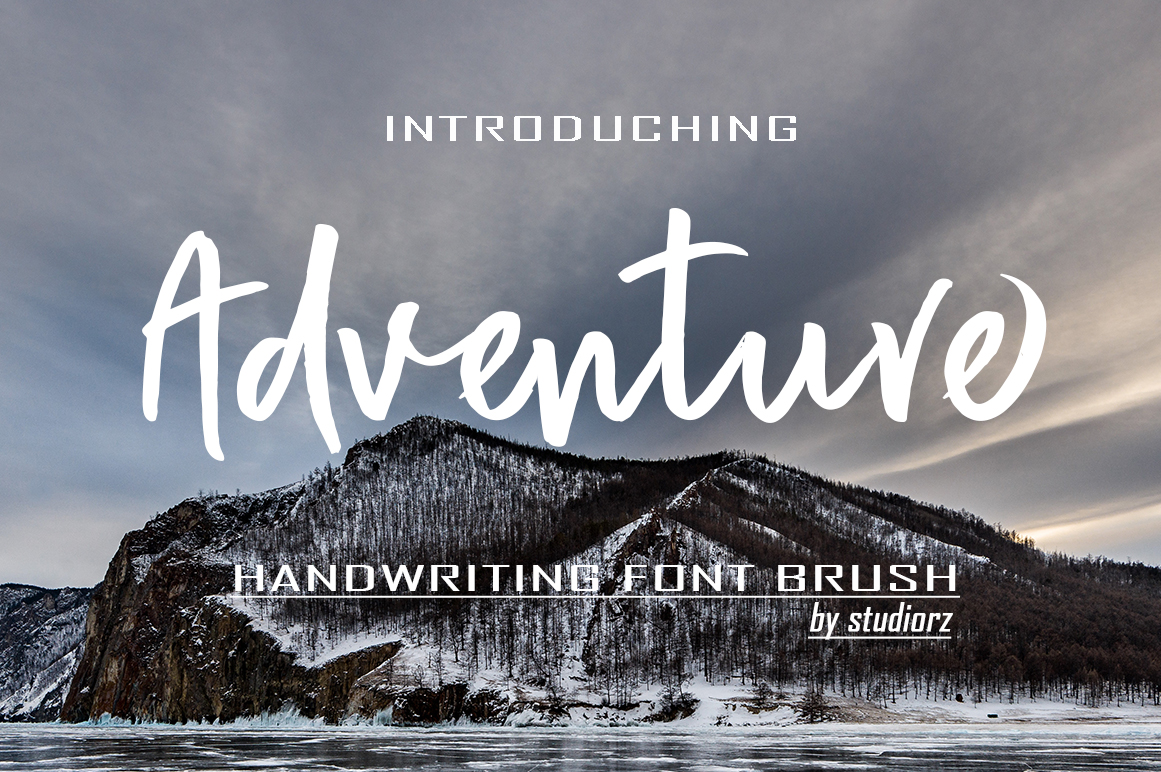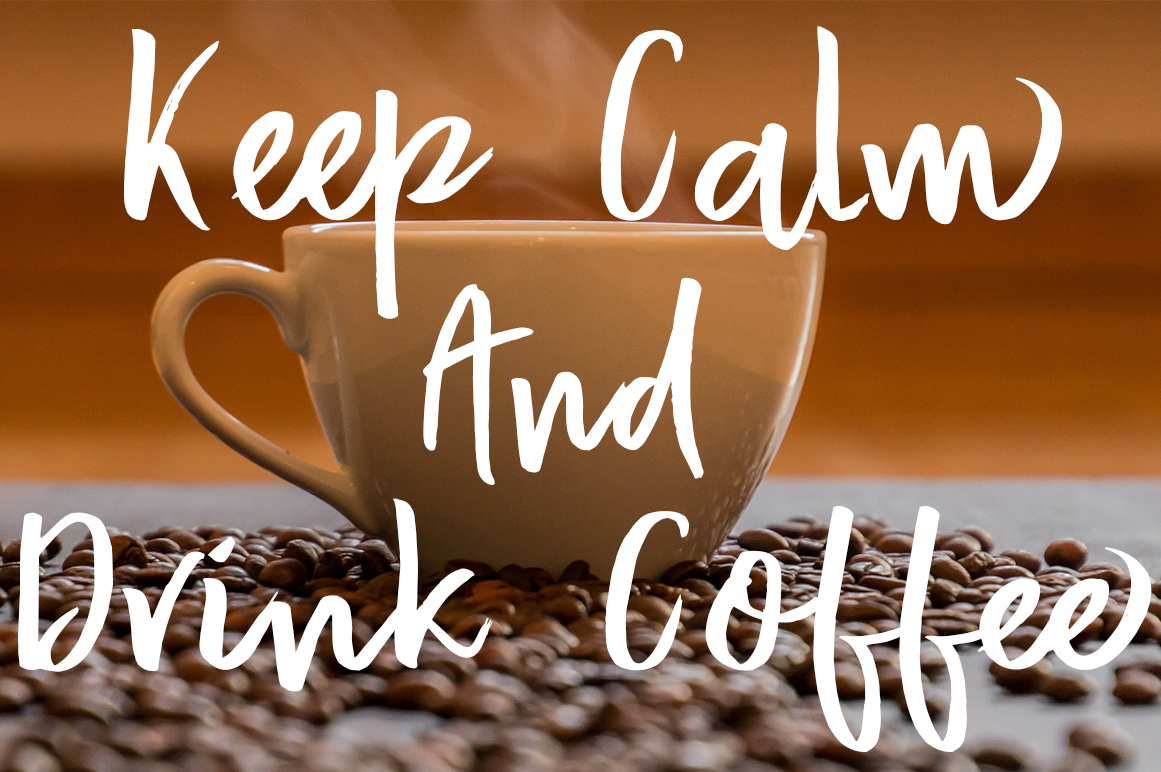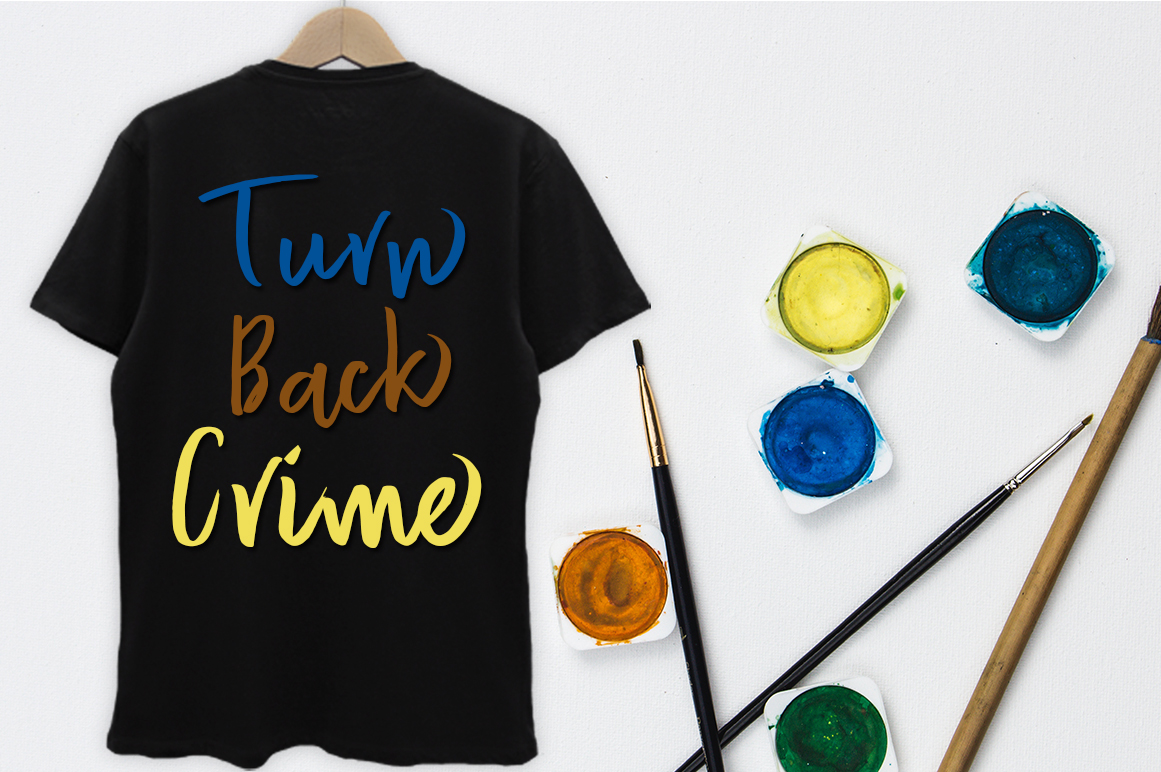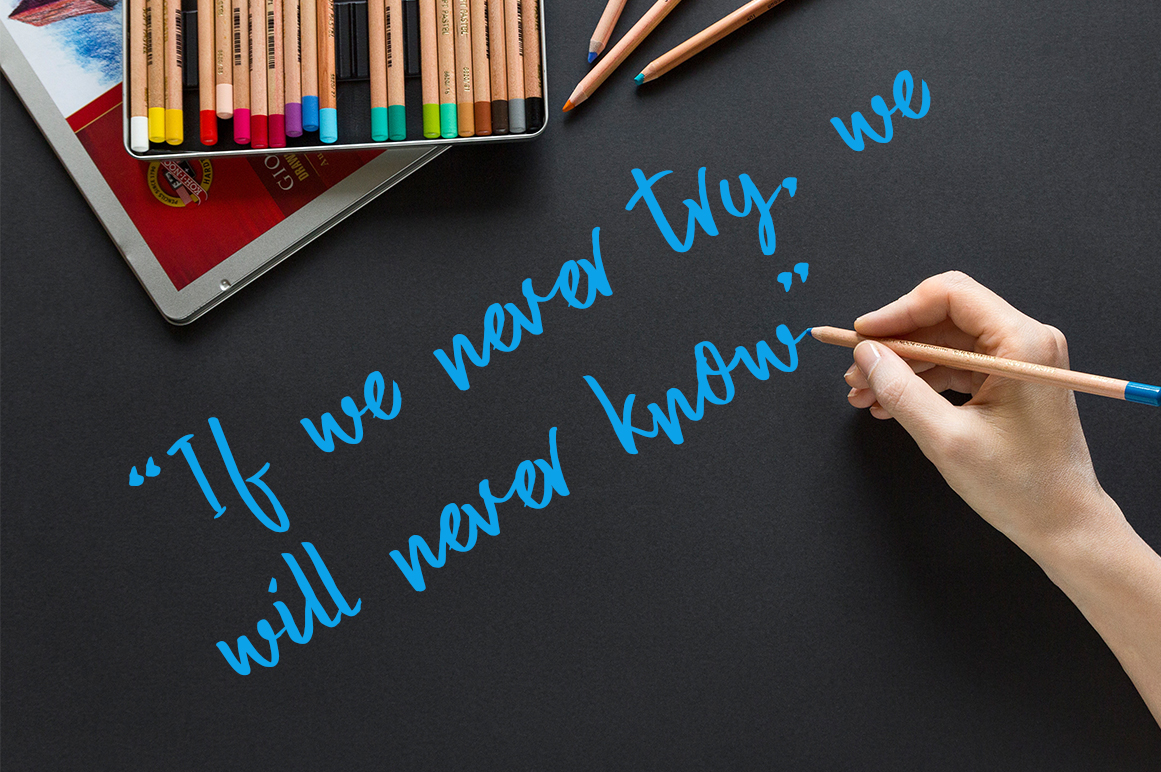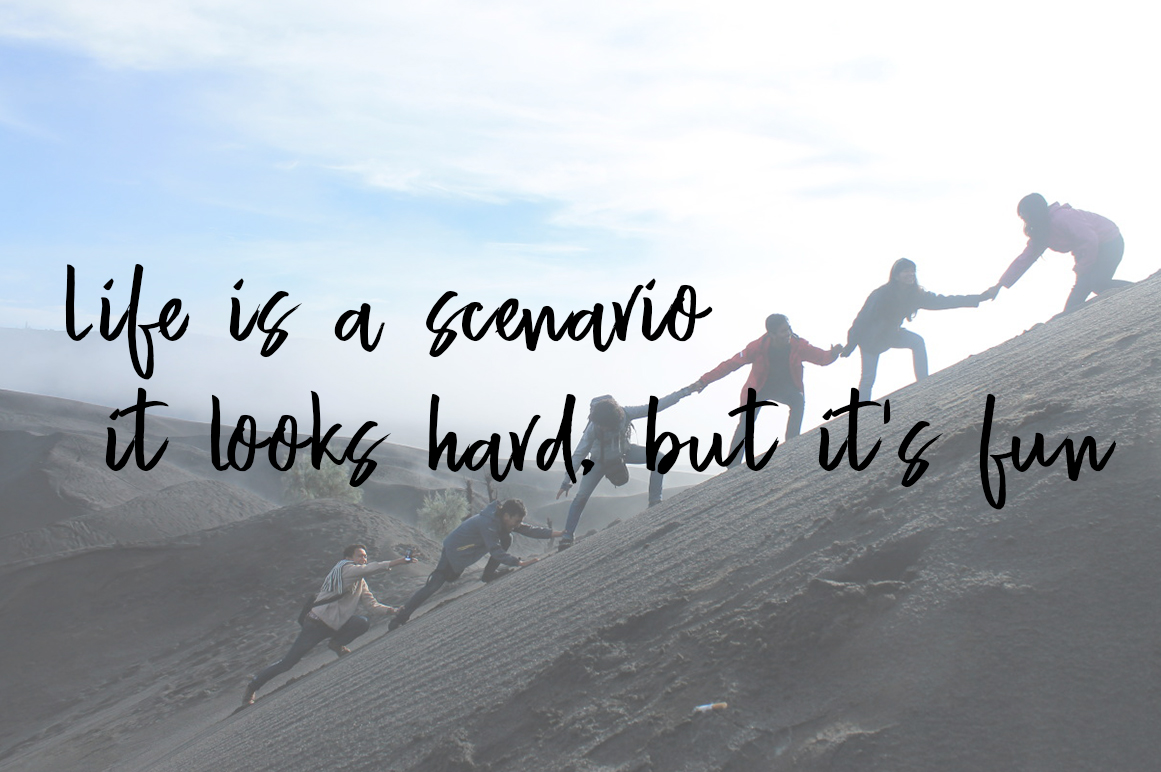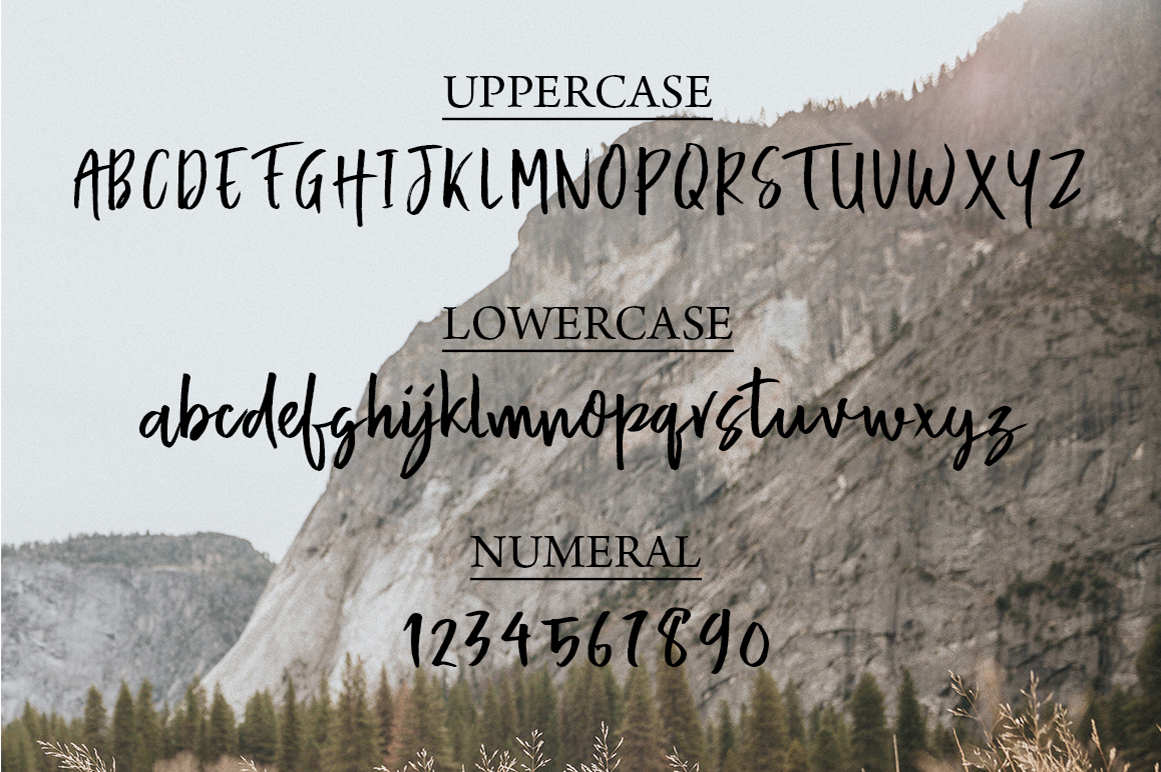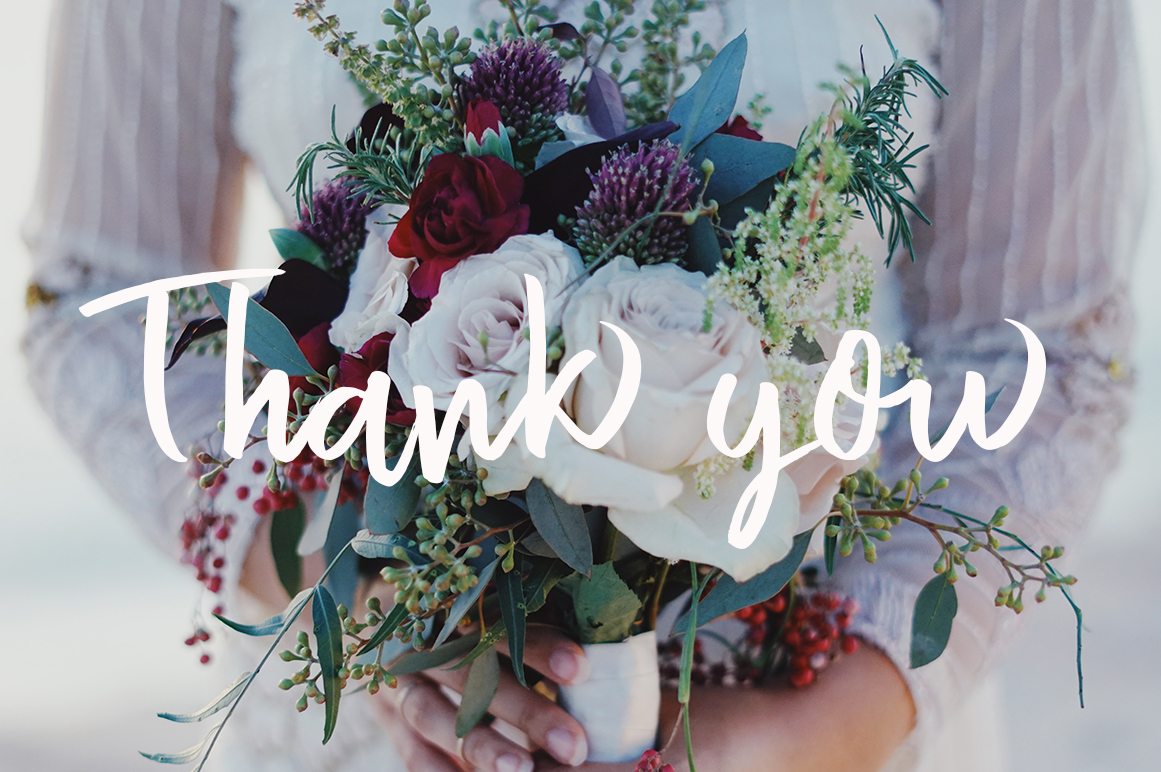
Adventure Font
Adventure is a gorgeous, relaxed hand drawn font; this script is readable and sits comfortably in any type of project you utilize it in given it’s ability to combine modern sensibility with classic style.